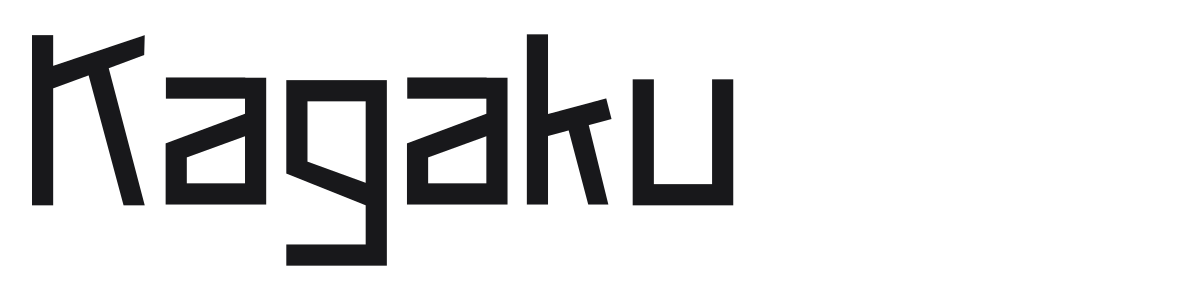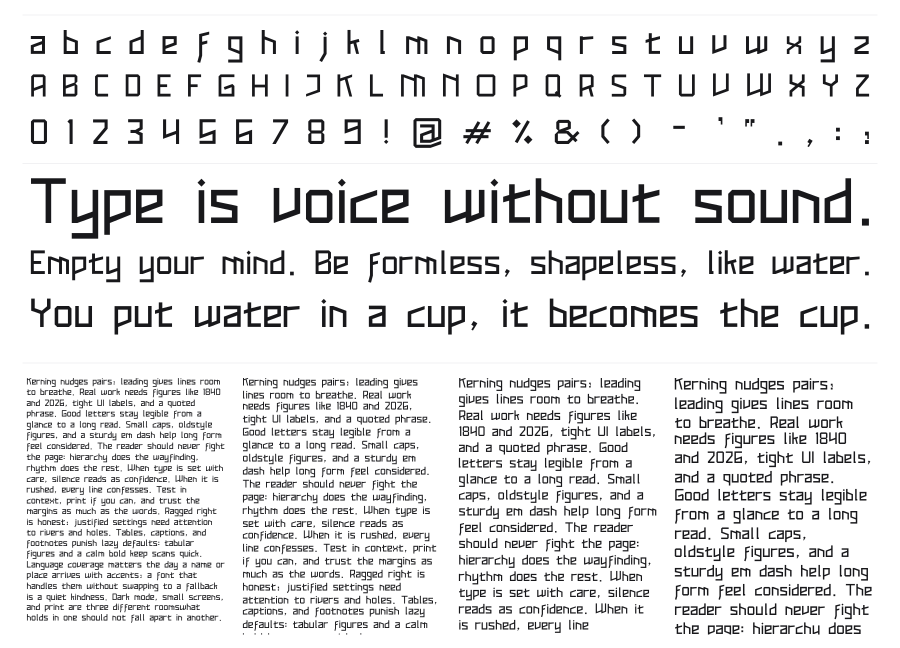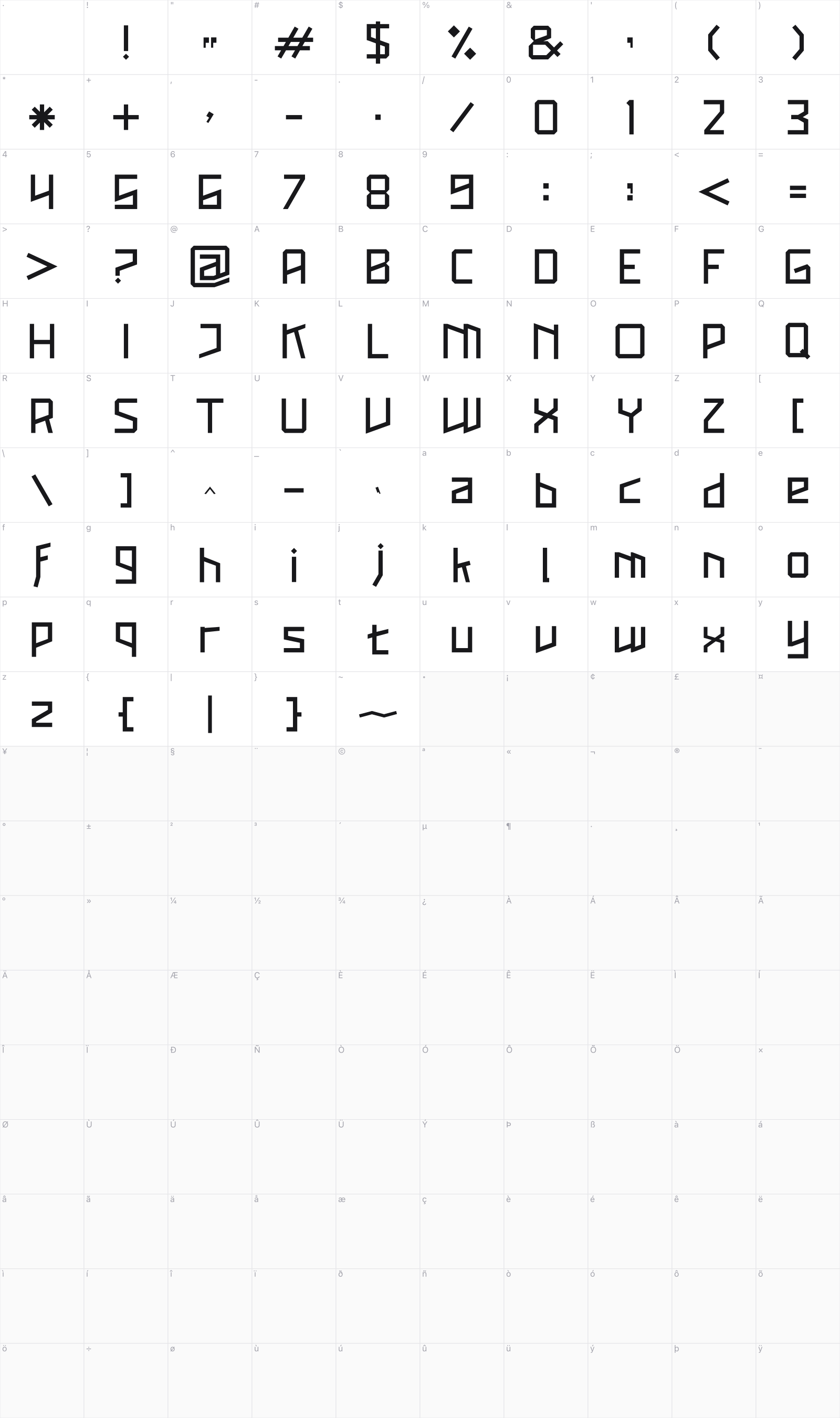
Kagaku
Kagaku is a bold geometric techno typeface built from squared, angular forms with a strong mechanical character. Its flat terminals and rectangular construction give it a distinctly Japanese-influenced, grid-based feel that sits somewhere between industrial and sci-fi. Heavy and confident at large sizes, it commands attention in headlines, logotypes, and gaming contexts.